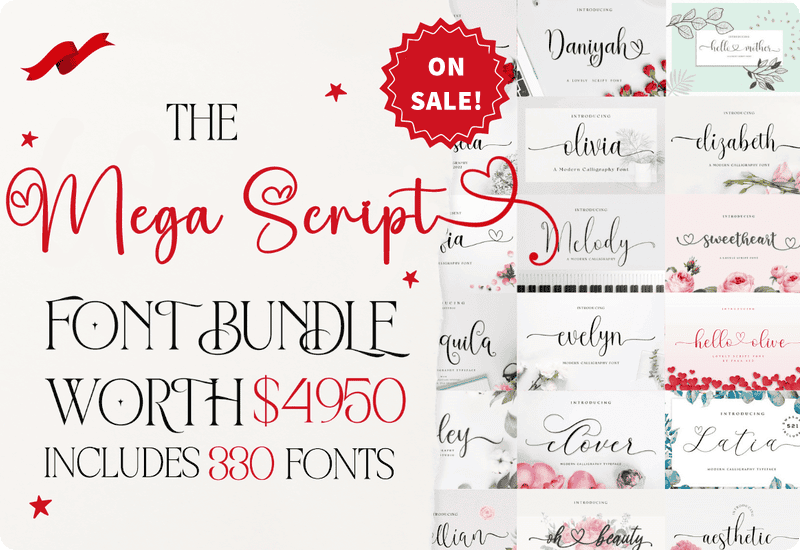
A Treasure Trove of Script Fonts — Now Free for a Limited Time
The Mega Script Font Bundle is a massive collection of 330 premium fonts by fanastudio, now available completely free for a limited time. Valued at $4,952, this bundle includes a wide range of romantic, elegant, and modern calligraphy styles perfect for branding, invitations, product packaging, social media, web design, and more. Each font is delivered with a commercial license, allowing full usage in personal and professional projects without restrictions.
What’s Included: A Premium Selection of 330 Fonts
This bundle is packed with diverse script and handwritten typefaces designed to elevate creative expression. Some of the featured fonts include:
- Camomile, Abigail, Hello Olive, Sweetheart — Soft and romantic styles great for wedding stationery and personal branding.
- Monalisa, Juliette, Hedaga, The Bettalia Duo — Modern calligraphy fonts ideal for high-end branding and fashion.
- Zalendia, Cattalonia, Nattasha, Sweething — Trendy and bold styles that bring personality to social media posts and packaging.
- Hello Cello, Rhapsody, Featherless, Humingtones — Creative and unique handwriting fonts to make your projects stand out.
And hundreds more! Each font is thoughtfully designed to provide options for every creative vision.